Lobotomy Corporation Font
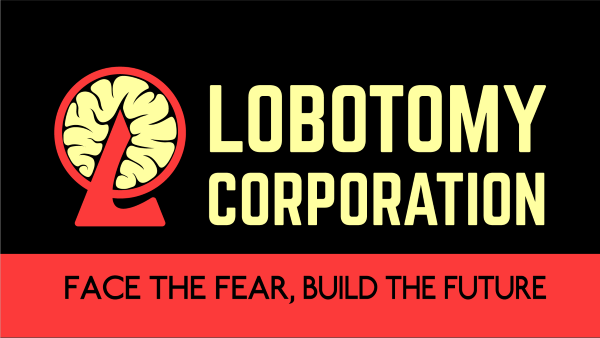
What is The Font Of Lobotomy Corporation?
The Lobotomy Corporation Font is based on Norwester, a free sans serif typeface designed by Jamie Wilson. The font closely matches the clean, industrial lettering used in the game’s branding.
Norwester features tall proportions, sharp edges, and a strong geometric structure that gives it a cold, corporate appearance. Its minimal design reinforces themes of control, order, and psychological tension present throughout the game. The font’s bold construction makes it highly readable while maintaining a sterile and authoritative tone. It works especially well for game logos, UI mockups, posters, and fan-made artwork inspired by dystopian and sci-fi settings. Norwester is free to download and use, making it a popular choice for recreating the Lobotomy Corporation title style.
About Lobotomy Corporation
Lobotomy Corporation is a monster-management simulation game developed by Project Moon and released in 2018. The game places players in charge of a mysterious energy company that contains supernatural entities known as Abnormalities. Blending strategy, horror, and narrative, the game challenges players to balance productivity with survival. Its unsettling atmosphere, psychological themes, and gradual storytelling have earned it a dedicated cult following. The sterile typography used in its visual identity mirrors the cold corporate facade masking the horrors beneath.